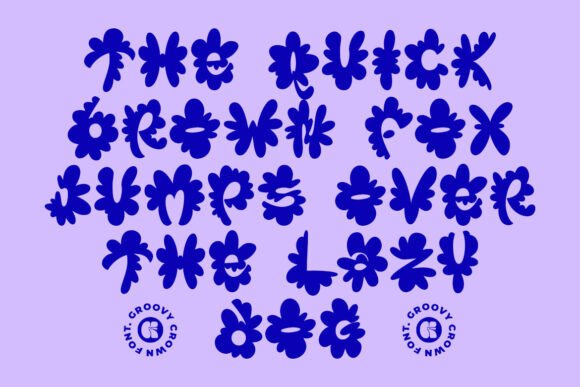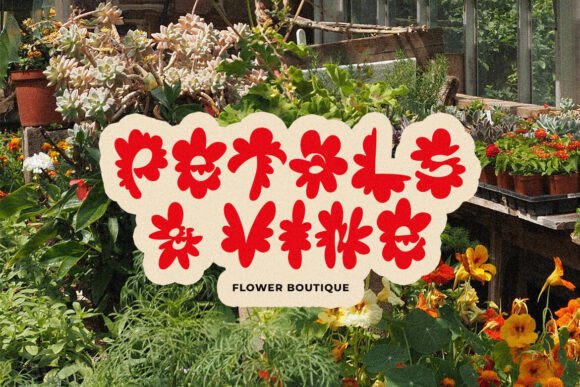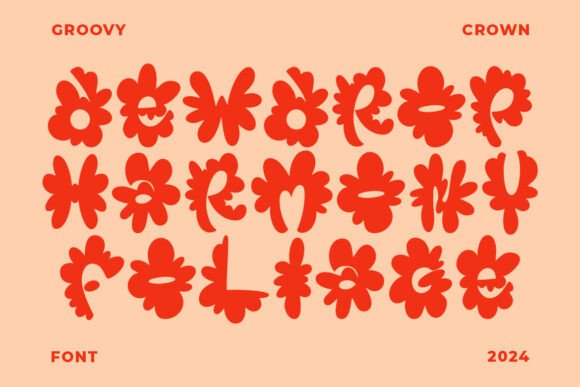
Introduction to Groovy Crown Font
Who hasn’t been there – staring at a blank design canvas, desperate for inspiration to strike. The blank page can be intimidating, but sometimes, all it takes is a single font to spark a creative idea. That’s exactly what happened when I stumbled upon the Groovy Crown Font – a playful display font that instantly elevated my design project to a new level.
This enchanting font, featuring hand-drawn sunflowers adorning each letter, is a true gem for designers. Its high-quality design and whimsical vibe make it a standout choice for creative projects that require a lively and cheerful atmosphere. Whether you’re working on a free download or a commercial design, the Groovy Crown Font is an excellent resource to have in your arsenal, especially with its transparent background option.
As a valuable design resource, the Groovy Crown Font is a must-have for any designer looking to add a touch of personality and charm to their work. With its creative and unique style, it’s sure to leave a lasting impression on your audience.
Key Features of Groovy Crown Font
- High-quality, vector-based design for a crisp and clear appearance in any creative project.
- Designed with a unique, hand-drawn style that adds a touch of personality to your creative project.
- Perfect for designers, artists, and creatives looking for a distinctive and eye-catching design element for their next project.
Honest Review: Groovy Crown Font
I recently stumbled upon the Groovy Crown Font, and I must say it’s been a game-changer for my creative projects. The font is a high-quality design resource that’s perfect for adding a touch of fun and whimsy to any project.
Here are some things that work well:
- ✨ The font’s unique design makes it perfect for creative projects that require a bit of flair.
- ⚠️ The font may not be suitable for more formal or professional projects, as its playful design may not be taken seriously.
- ⚠️ Some users may find the font’s complexity overwhelming, especially when it comes to pairing it with other design elements.
Overall, I’m thoroughly impressed with the Groovy Crown Font. Its unique design and versatility make it a valuable addition to any designer’s toolkit. Whether you’re working on a free download project or need a design resource for a paid gig, this font is definitely worth checking out.
How to Use Groovy Crown Font
To get the most out of the Groovy Crown Font, experiment with different font sizes and styles to create a unique look. Combine the font with other design elements, such as images and shapes, to create a visually appealing design.
The Groovy Crown Font is perfect for a variety of creative projects, including social media graphics, presentations, and documents. Its high-quality design and transparent background make it a valuable resource for designers and non-designers alike.